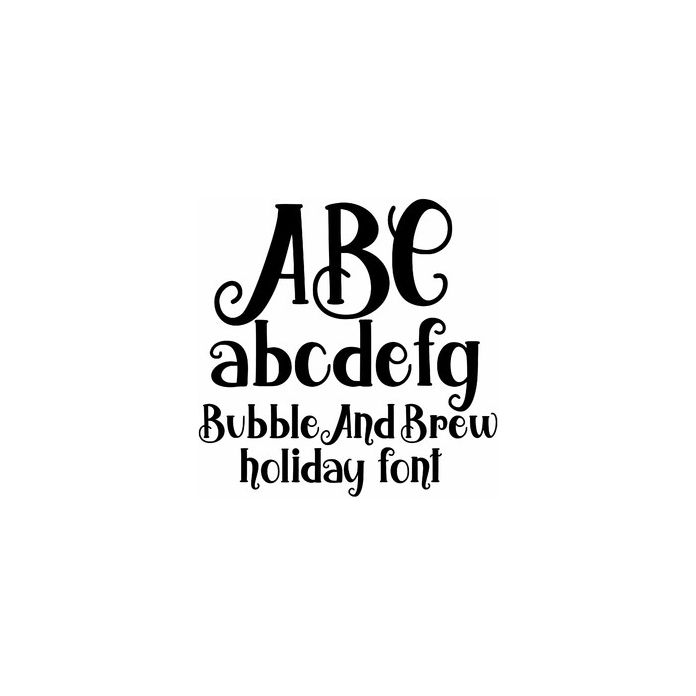
Decorative font for Halloween and Christmas decorations, cards, crafts, signs, and personalization projects. Includes alphabet, numbers, and punctuation.